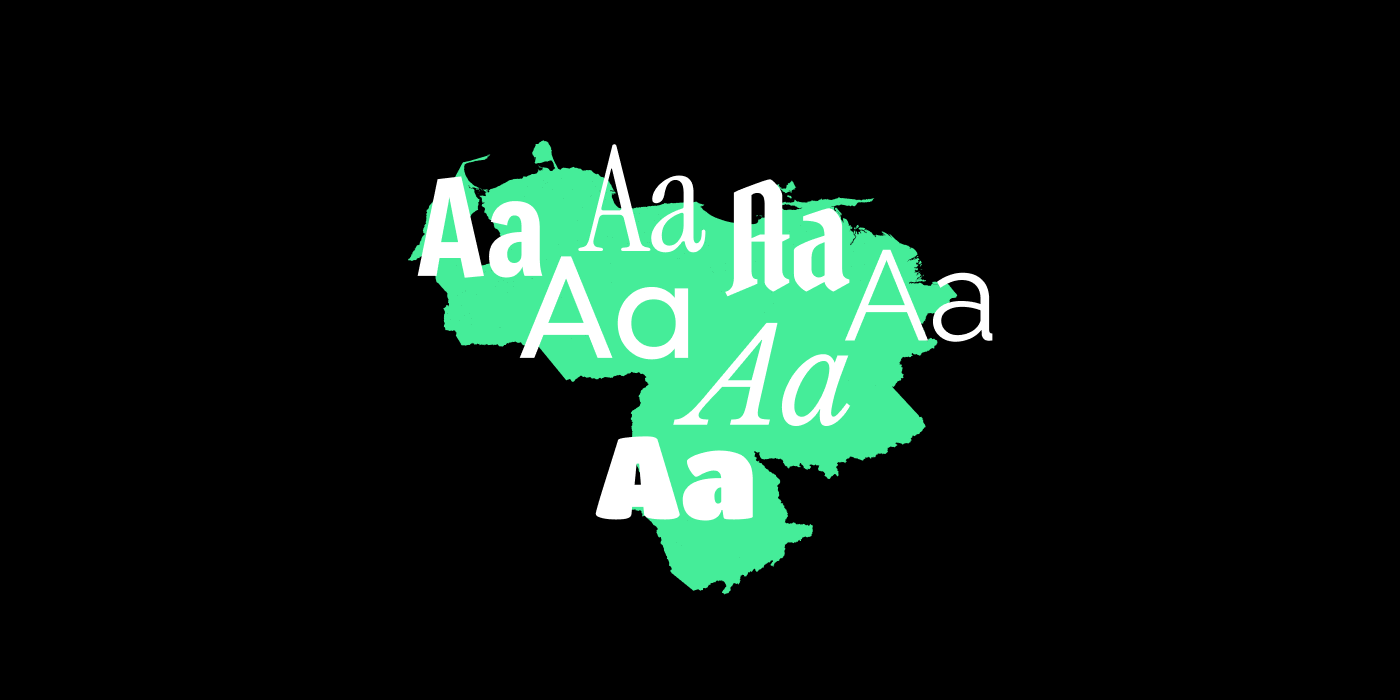
Many of the fonts we use today are easily accessible thanks to Google Fonts, an open-source platform that has transformed how we access and use typography. It has grown from a modest collection of about 100 fonts to a vast library of thousands, each created by talented designers committed to enriching our visual landscape.
Among these designers is Rodrigo Funzalida, a Venezuelan creator and co-author of at least a dozen fonts featured on Google Fonts. His work shows us the passion and precision required to craft typefaces that not only look beautiful but make creativity widely accessible.
You’ve probably heard of Raleway, almost as popular as Monserrat or Roboto. Or Instrument Serif, which might already be part of your portfolio projects. Creating a typeface is no small feat; it demands skill, vision, and attention to detail. But the real reward comes when these fonts find their way into the real world—on posters, websites, products, and more—helping others bring their projects to life.
We recently had a chat with Rodrigo about his motivations, experiences, and the process behind his type design work. Discover one of the masterminds behind the OTF files in your font folder, a reminder that while we may not know everything about our origins, we can always trace the roots of great design back to passionate individuals who shape the way we see—and read—the world.
Rodrigo Fuenzalida’s Journey Through Type
Rodrigo Fuenzalida has become a prominent voice in type design. He graduated from Prodiseño, one of Caracas best design schools, in 2007. His immersion into typography grew through self-study and hands-on work, taking him from Buenos Aires and Santiago de Chile to his current base in Portugal.
Early in his career, Rodrigo contributed to the design department at the Museum of Contemporary Art in Venezuela. Here, he helped create a catalog for the Pirelli Salon, which later won the National Book Award alongside Carlos Rodríguez. His time in South America brought him close to influential figures like Pablo Impallari (a key force behind Google Fonts), Aldo De Losa, and Rubén Fontana, whom he deeply admires as a mentor.
Today, Rodrigo works independently for various clients, including major names like Google Fonts and Monotype. He also regularly collaborates on typographic projects with design studios such as InHouse and F37. His exceptional work has been recognized and showcased globally, appearing in prestigious events like the Bienal de Tipos Latinos (in 2012, 2016, and 2018), at the Museo de la Estampa y el Diseño Carlos Cruz Diez, and in various publications by Slanted.
Now Rodrigo has his own independent type foundry, fragTYPE, building amazing typefaces such as Kintaro. They have a special focus for videogame-inspired fonts and actively looking to create projects that fit into their digital universe.
A Type of Interview with Rodrigo
What motivates you to create so many open-source typefaces?
R: Basically because I love making fonts, I’m in love. Seeing a font in use is something indescribable and knowing that thousands of people can make use of my work because they can access it for free is a great satisfaction.
How did your collaboration with Google Fonts begin, and what has that experience been like?
R: It started a few years ago, if I remember correctly it was in 2011 when Dave Crossland was in South America looking for people to participate in the project, at that time I wrote him to see if he would be interested in Titan for the project, he said yes and from then on I have always kept in touch with the project in some way or another.
What inspired you to fall in love with type design?
R: My teachers, Gabriela Fontanillas, Pedro Holder, Carlos Rodríguez, Luis Giraldo y Eduardo López among others, were the ones who implanted in me the seed of typography, it is thanks to them that I started to design fonts and the rest is history.
How did you start your journey as a type designer?
R: My journey in typography design began in a self-taught way in 2009, it was during that year that I made my first “usable” fonts that you could install on the system and write with them. From that moment on I’ve made mistakes, I’ve learned, I’ve improved and every day I learn something new related to font design.
What advice would you give to someone just starting out in type design?
R: Do it, start to draw letters, if you have doubts look for online resources (there’s a lot of them) reach out to other type designers, it would surprise how open most of them are to share their knowledge with others. And just keep doing, that’s the best way to improve.
What are some type designers who you believe are currently influencing contemporary visual culture?
R: Alec Tear, Ricardo Baez, Kris Sowersby.
Which designers have inspired you personally in your career, and why?
It would be especially interesting if you could mention any connections to Venezuelan design history.
Rodrigo Fuenzalida’s impactful work is a shining example of the talent emerging from countries like Venezuela. Latino designers are consistently pushing boundaries, contributing brilliant, accessible typefaces to the open-source world. Their dedication enriches our shared design resources, proving that creativity knows no borders. Every time you pick a font for your project, you might just be tapping into the rich, inspiring legacy of Latin American design.